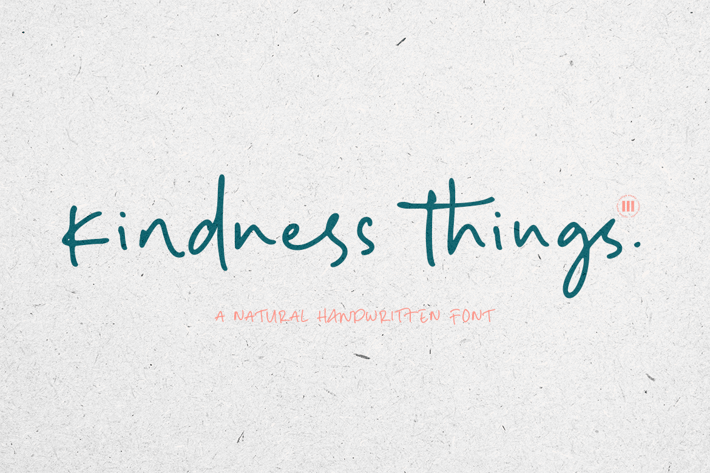
Kindness Things - A Casual Handwritten Font
Kindness Things is A Casual Handwritten Font that is suitable for design projects; casual theme, logo, branding, poster, quotes, display, beautiful stationary art, eye-catching social media posts, and cute greeting cards, and any other designs.
Huge Ligatures
Some Alternates
Some Dingbats
Full uppercase and lowercase glyphs
Numbers, punctuations, and symbols